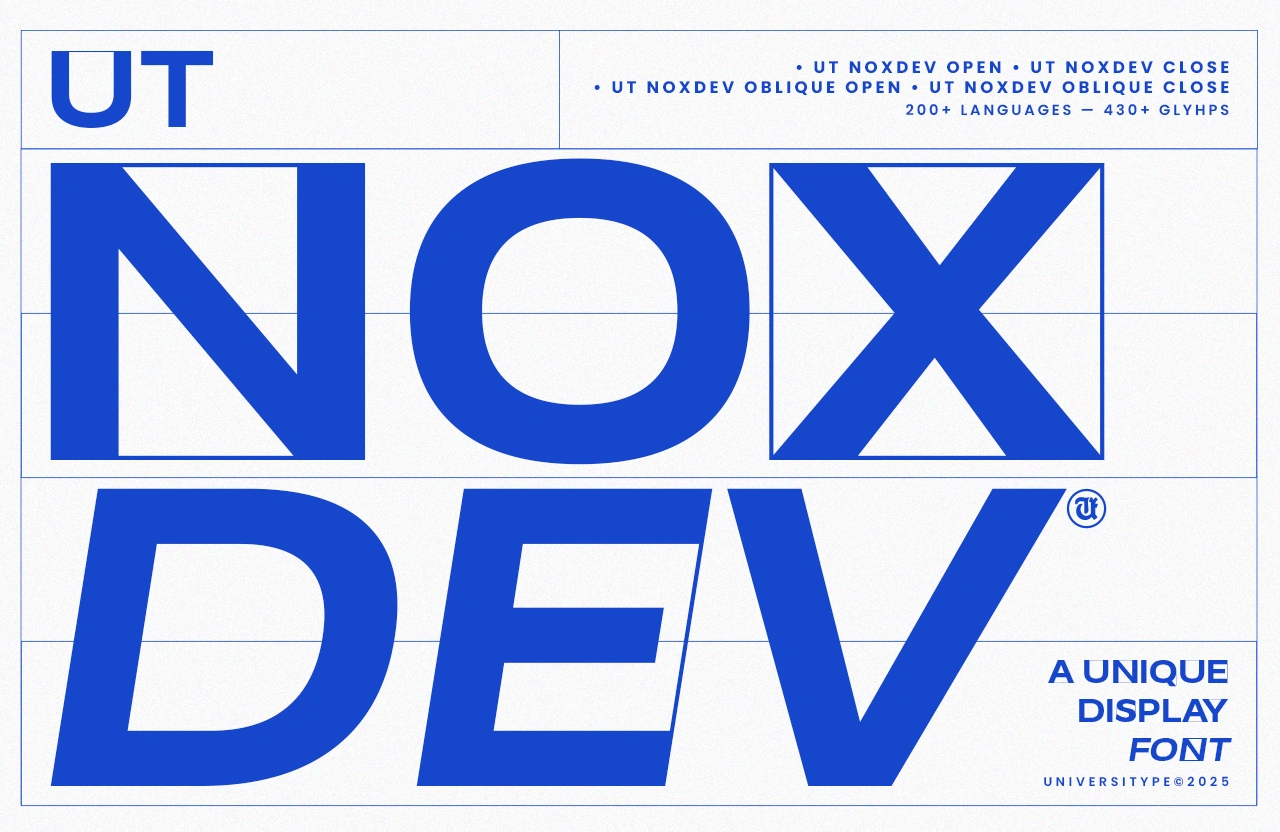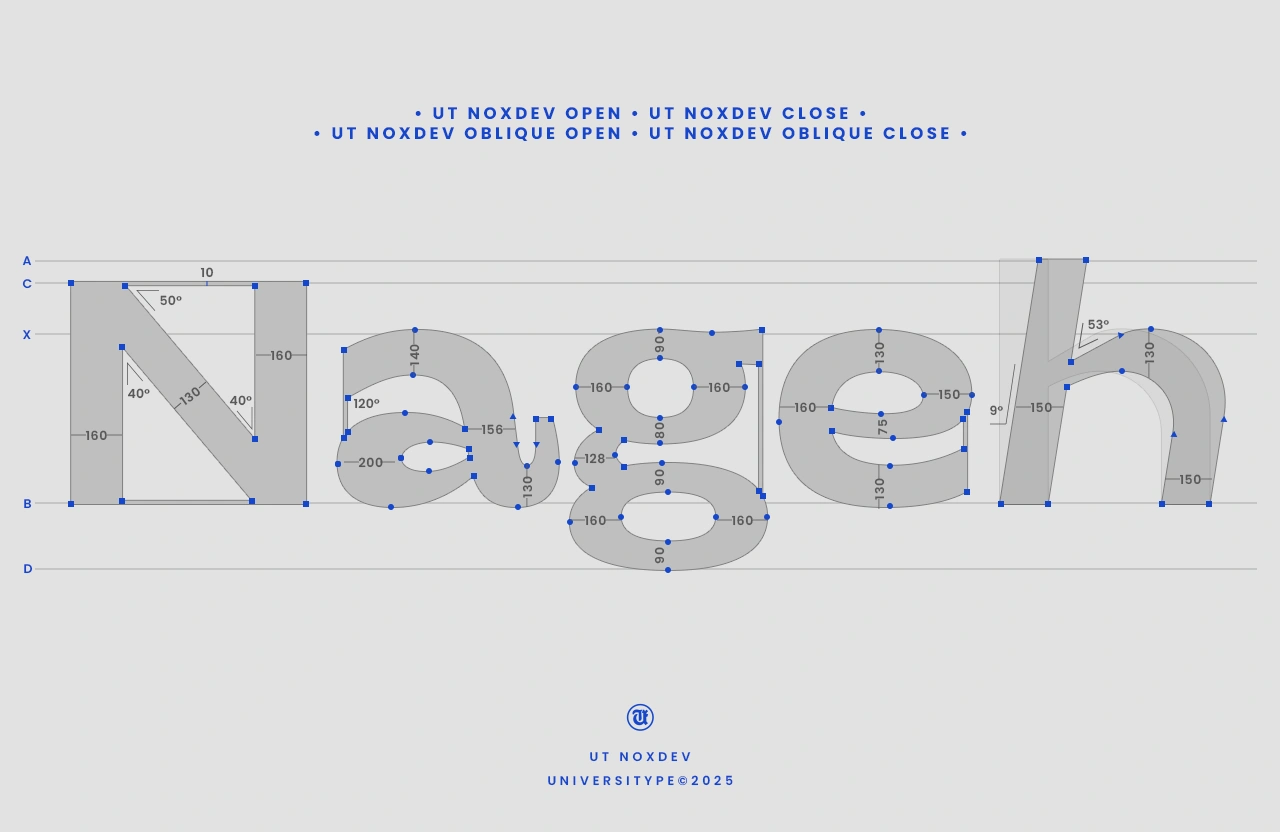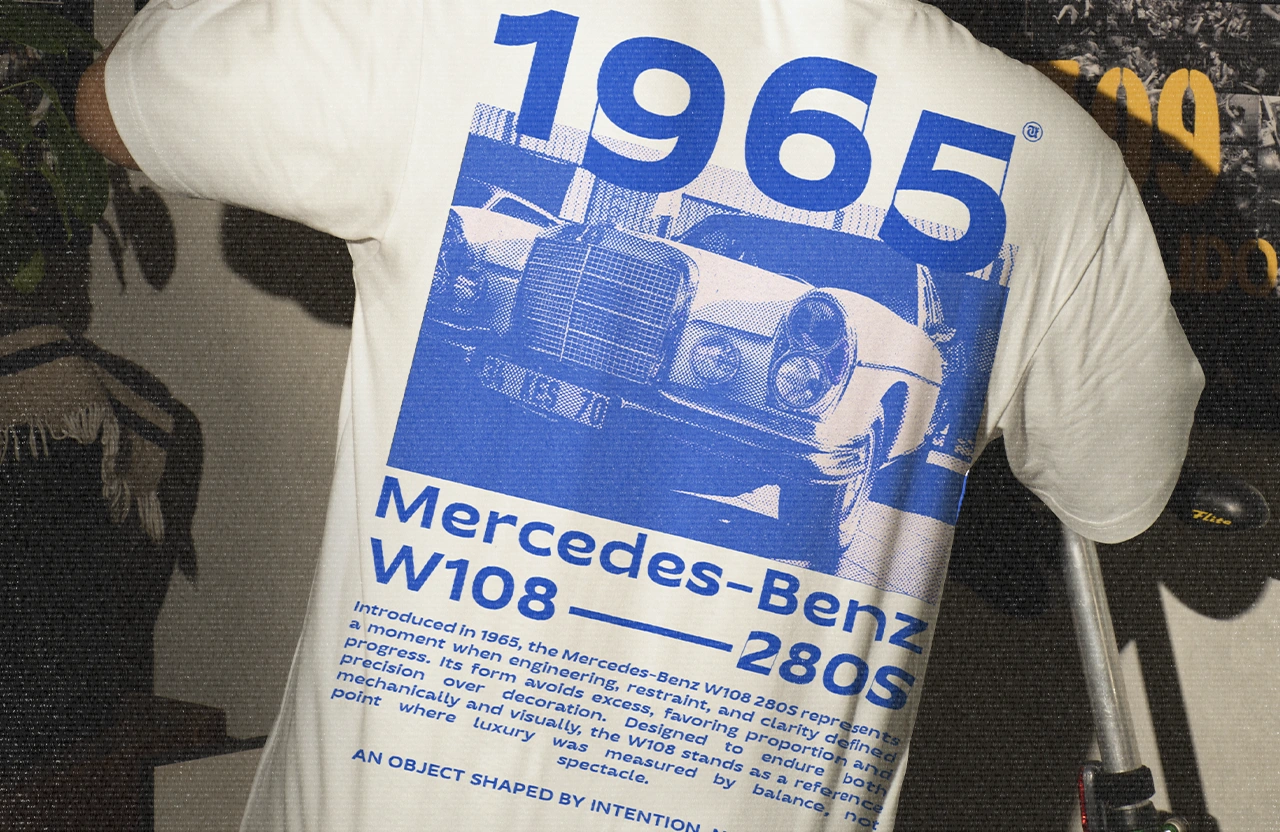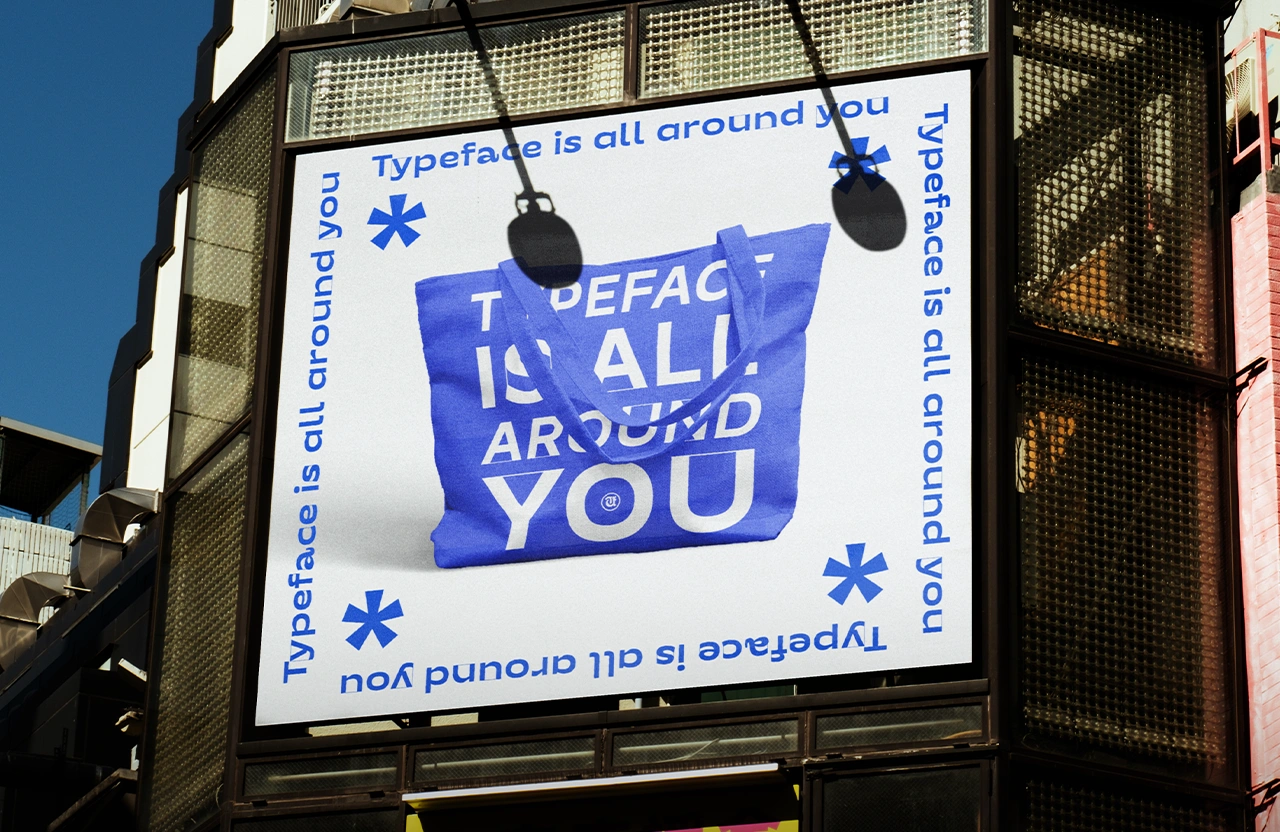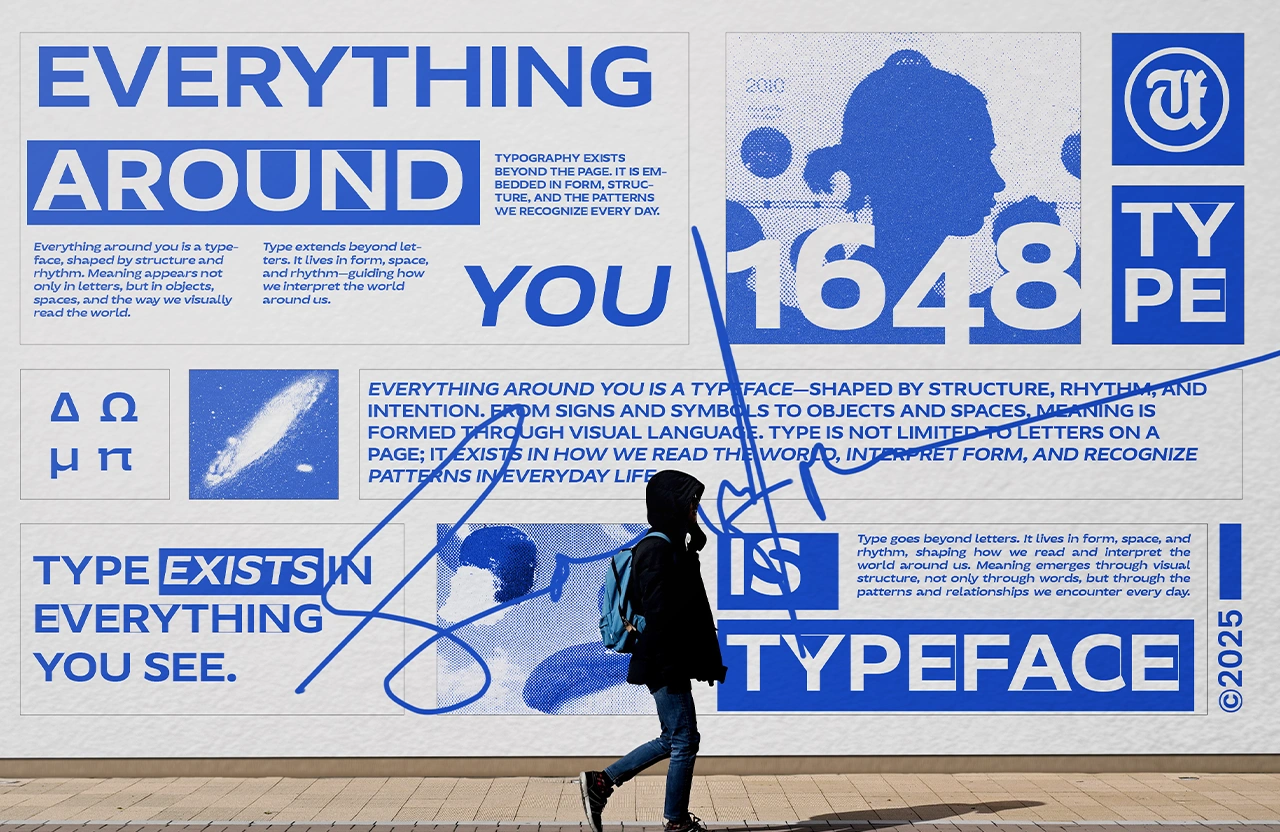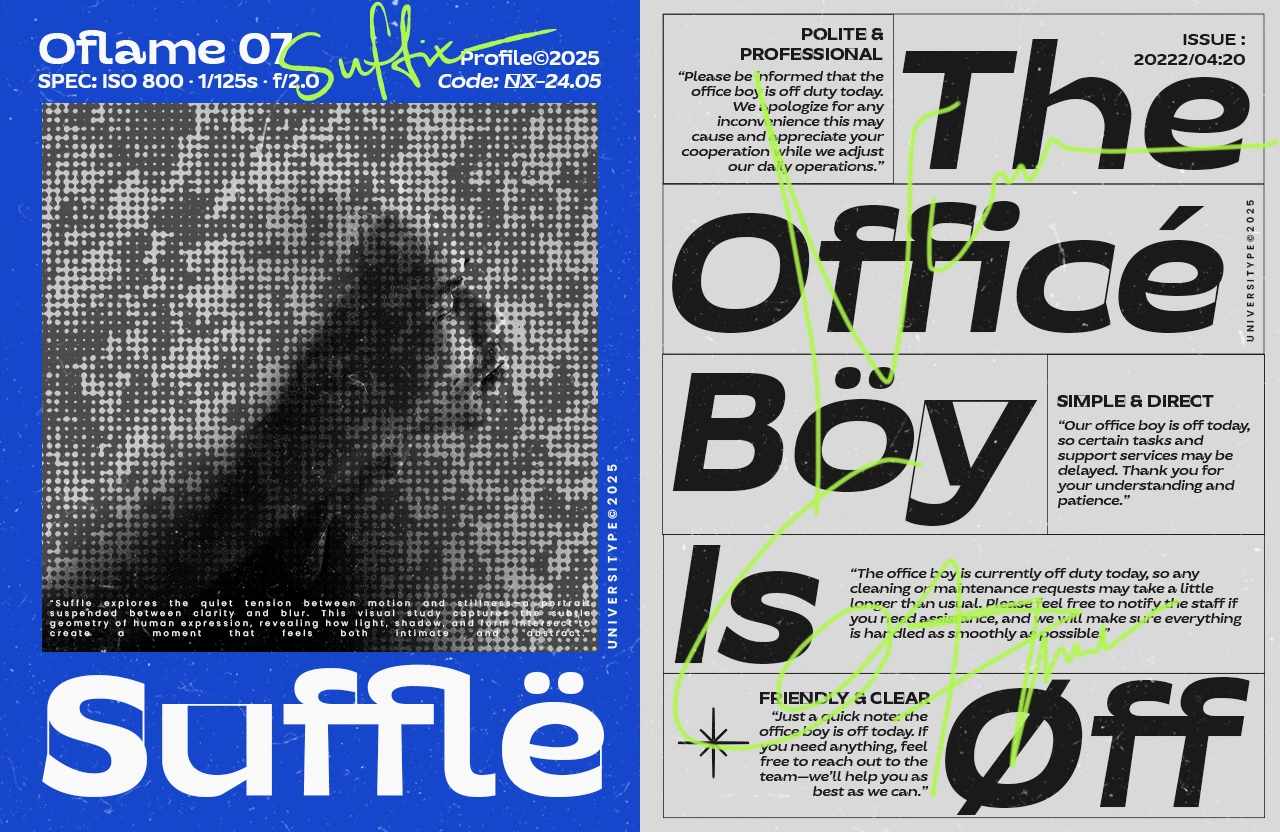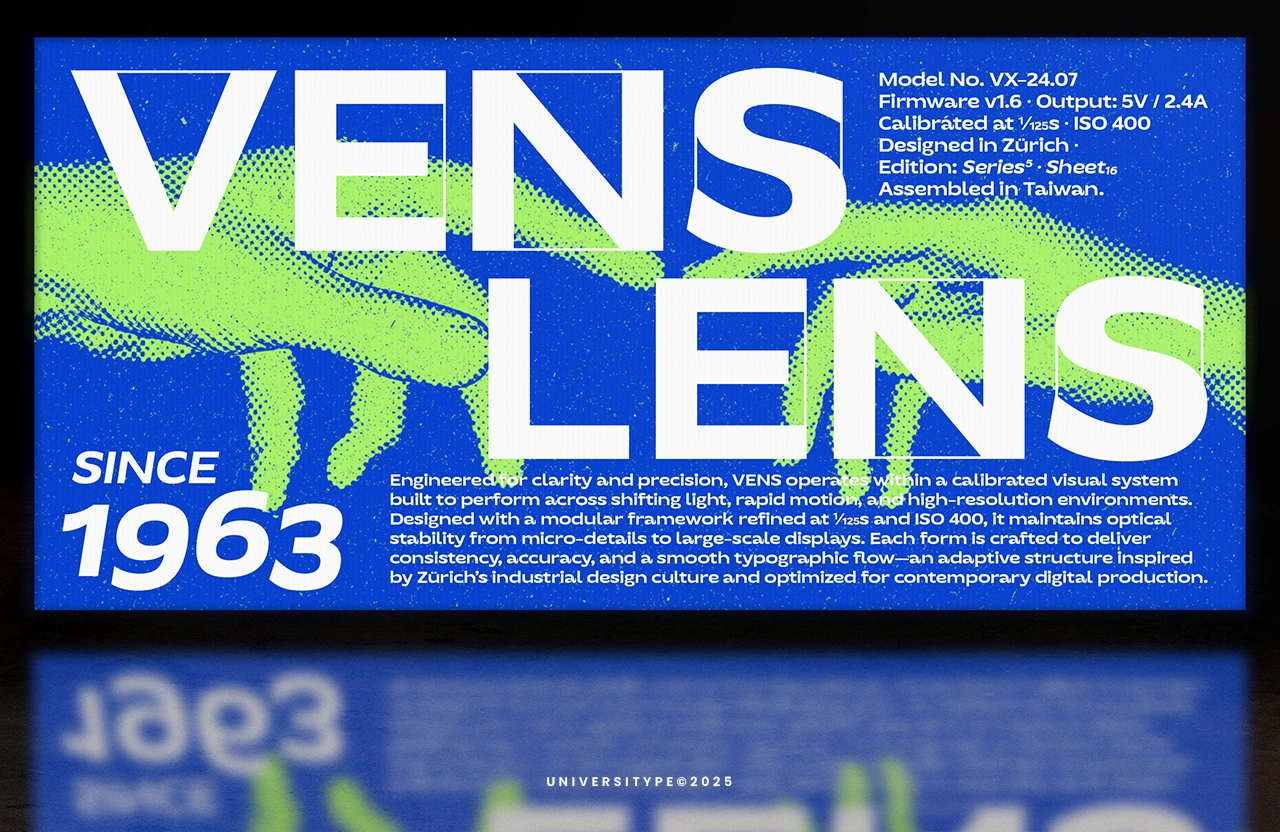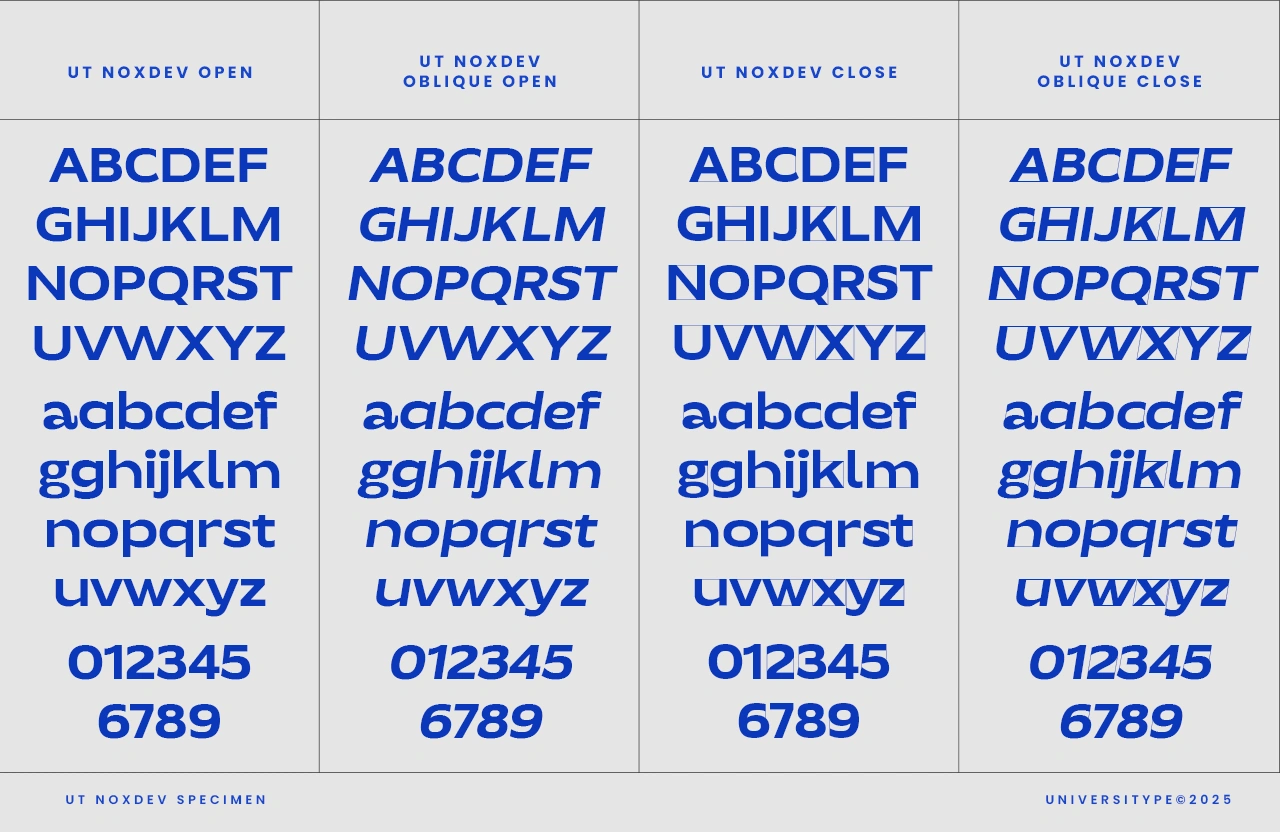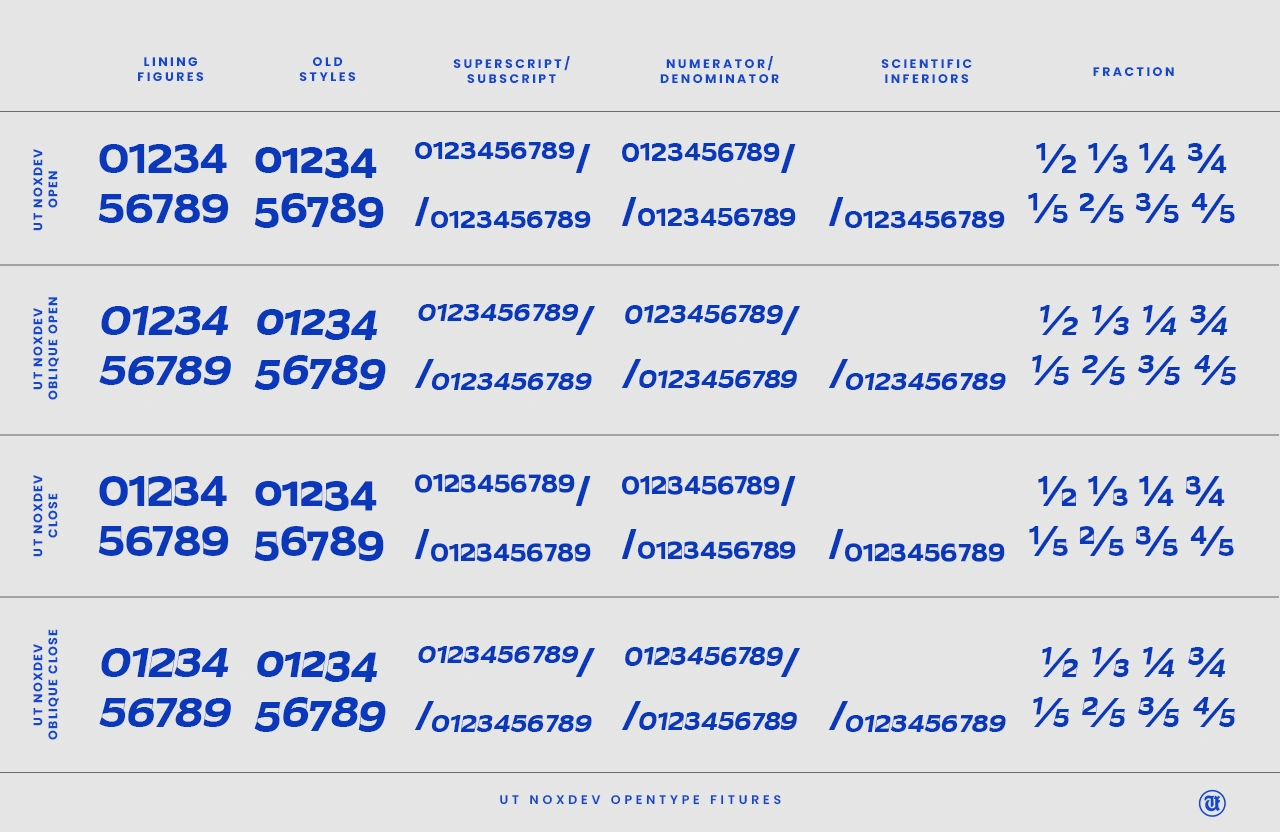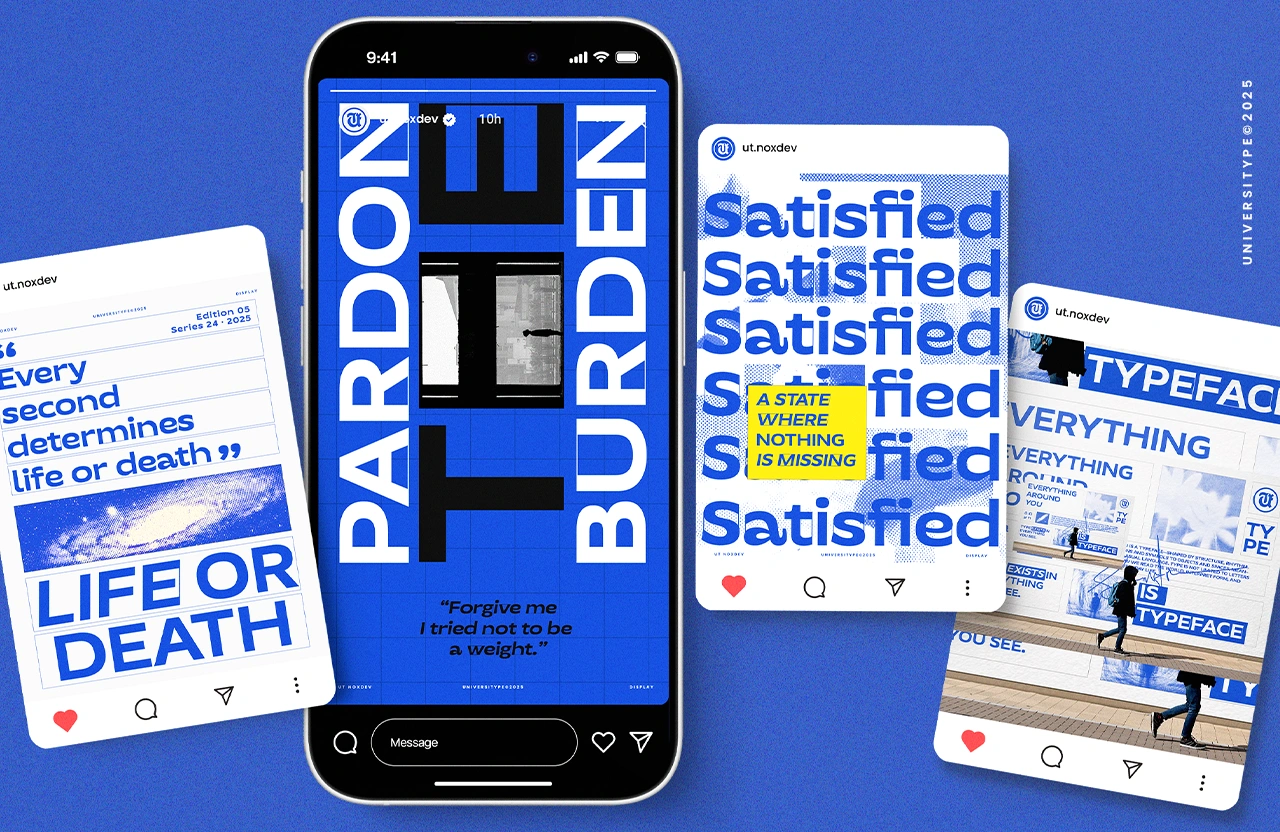
UT Noxdev
UT Noxdev is a bold display typeface built on contrast and structure. It combines open and closed letterforms with sharp angles and smooth curves, creating a strong visual rhythm that feels modern, technical, and expressive. Designed for impact, it stays clean and readable even at large sizes.
UT Noxdev – Display Typeface
UT Noxdev is a bold display typeface built on contrast and structure. It combines open and closed letterforms with sharp angles and smooth curves, creating a strong visual rhythm that feels modern, technical, and expressive. Designed for impact, it stays clean and readable even at large sizes.
• UT Noxdev Open
• UT Noxdev Close
• UT Noxdev Oblique Open
• UT Noxdev Oblique Close
Key Features
• 4 display styles
• Open and closed letter constructions
• Oblique styles for dynamic layouts
• Strong uppercase and expressive lowercase
• Clean geometry with sharp details
• 300+ glyphs
• Supports 200+ languages
Ideal For
• Posters and large-format designs
• Branding and visual identities
• Editorial headlines
• Album covers and music visuals
• Web headers and digital campaigns
Font Features
• Display-optimized spacing
• Solid numeral set
• Consistent design across all styles
• Suitable for print and digital use